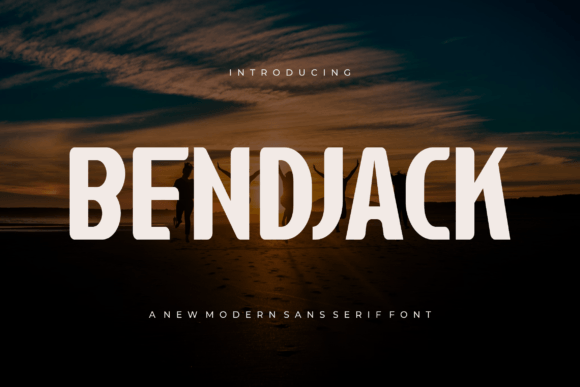
Bendjack Font: Elevate Your Designs with a Bold and Assertive Sans Serif Font
In the world of typography, fonts play a crucial role in conveying messages, expressing emotions, and creating visual identities. Among the numerous fonts available, Bendjack stands out as a bold and assertive sans serif font that can elevate any design project. In this article, we’ll explore the features, benefits, and uses of Bendjack font, and why it’s an incredible asset to your font library.
What is Bendjack Font?
Bendjack is a modern sans serif font designed to make a statement. Its bold and assertive style makes it perfect for headlines, titles, and any design project that requires a strong visual impact. The font’s clean lines, geometric shapes, and precise curves create a sleek and sophisticated look that’s both elegant and edgy.
Benefits of Using Bendjack Font
Bendjack font offers several benefits that make it an attractive choice for designers and typographers. Some of the key advantages of using Bendjack include:
- Versatility: Bendjack font is versatile and can be used for a wide range of design projects, from branding and advertising to packaging and digital media.
- Legibility: The font’s clear and precise design ensures excellent legibility, making it easy to read even at small sizes.
- Emotional Connection: Bendjack’s bold and assertive style can evoke emotions and create a strong connection with the audience.
- Uniqueness: The font’s unique design sets it apart from other sans serif fonts, making it an excellent choice for designers looking for a distinctive look.
Uses of Bendjack Font
Bendjack font can be used in a variety of design projects, including:
- Headlines and Titles: Bendjack’s bold style makes it perfect for headlines and titles that require attention-grabbing typography.
- Branding and Logo Design: The font’s unique design and assertive style make it an excellent choice for branding and logo design projects.
- Advertising and Marketing: Bendjack font can be used in advertising and marketing materials, such as brochures, flyers, and social media graphics.
- Packaging Design: The font’s clean and modern design makes it suitable for packaging design projects, such as product labels and packaging materials.
- Digital Media: Bendjack font can be used in digital media, including website headers, mobile app interfaces, and digital advertising.
Why Bendjack Font is an Incredible Asset to Your Font Library
In conclusion, Bendjack font is a bold and assertive sans serif font that can elevate any design project. Its versatility, legibility, and unique design make it an incredible asset to your font library. Whether you’re a designer, typographer, or simply someone looking for a reliable font, Bendjack is an excellent choice. With its wide range of uses and benefits, Bendjack font is sure to become a staple in your design arsenal.